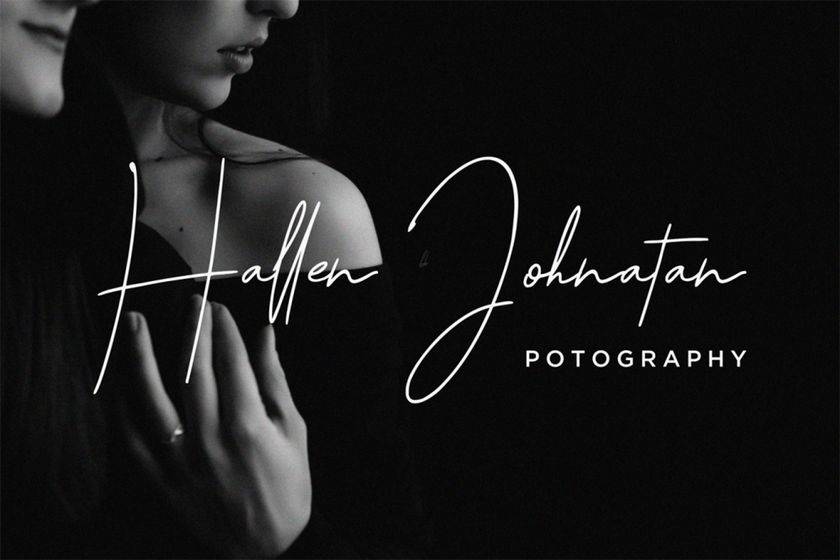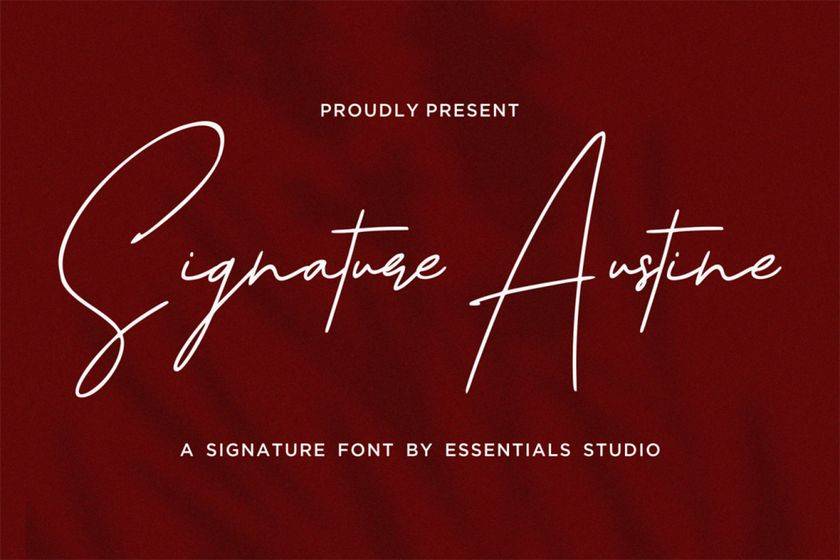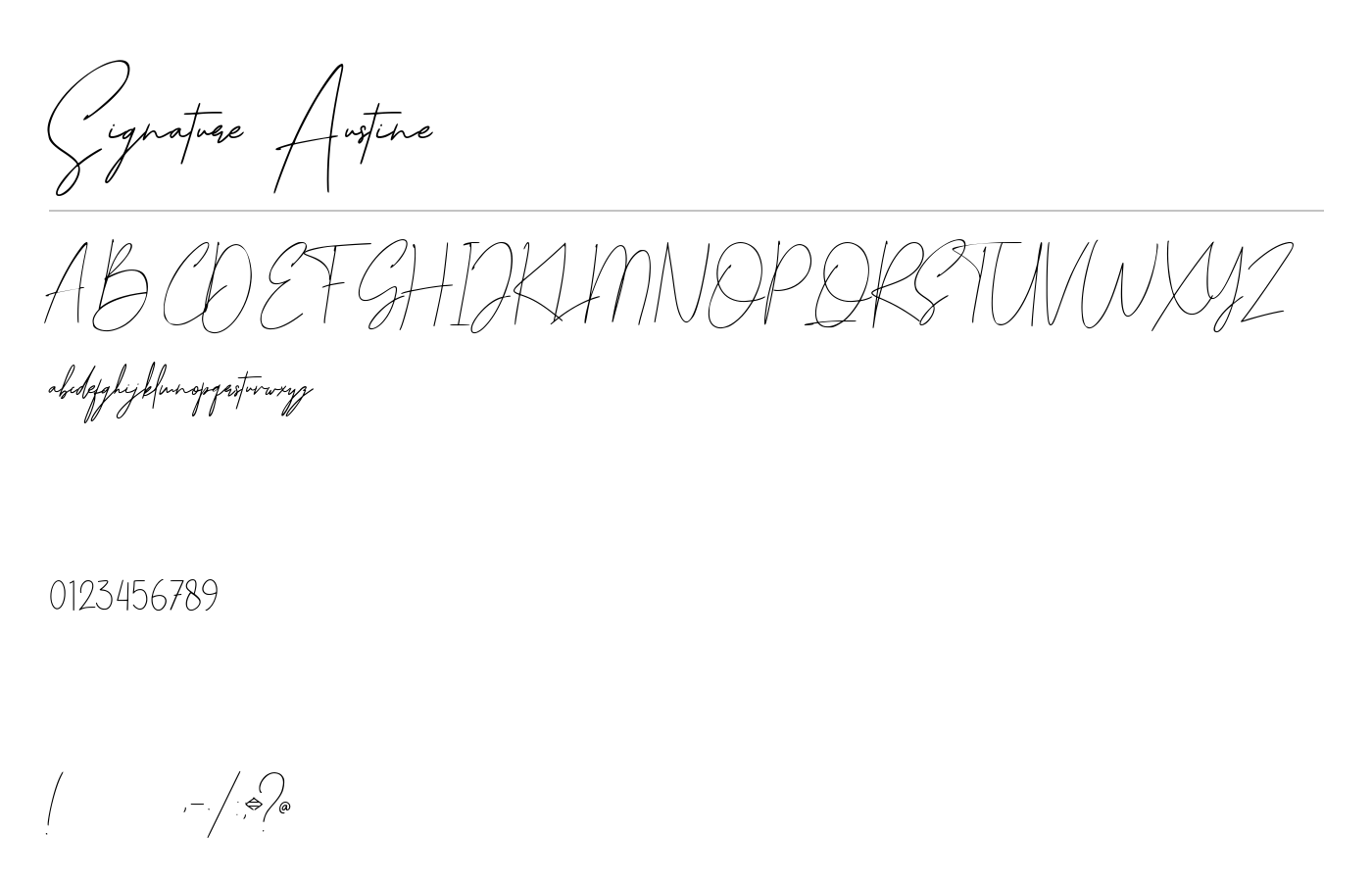
Signature Austine is a delicate, elegant script font with a thin weight and a naturally flowing, handwritten style. Its tall, narrow letterforms and subtle, graceful curves convey a modern and sophisticated feel, making it perfect for luxury branding, fashion logos, and personal signatures. This font works best where a refined, stylish touch is needed to create an intimate and artistic impression.
Signature Austine Font
About Signature Austine Font